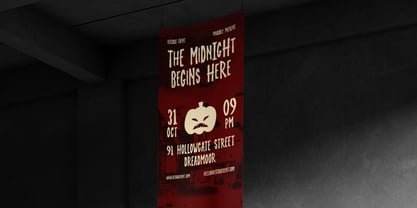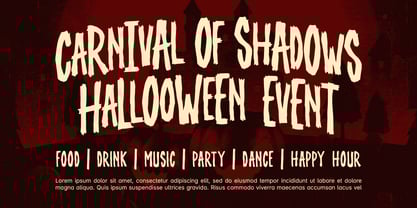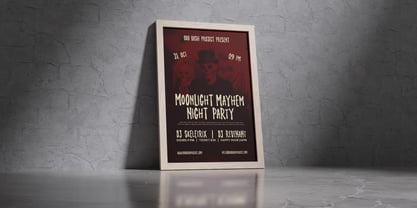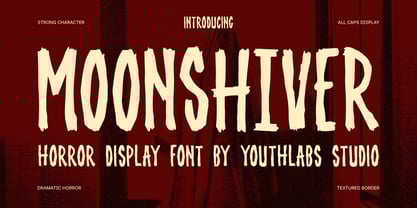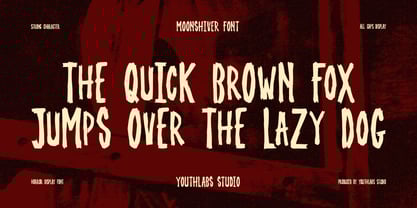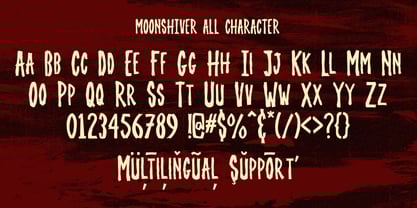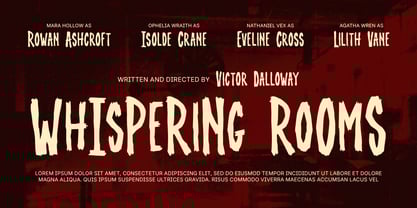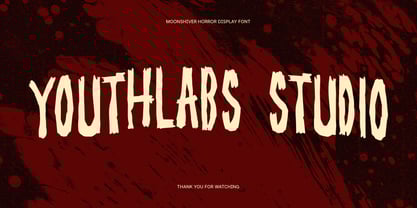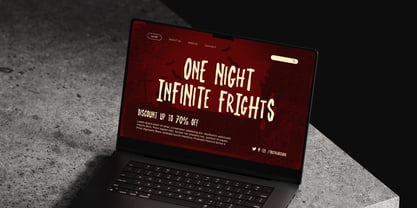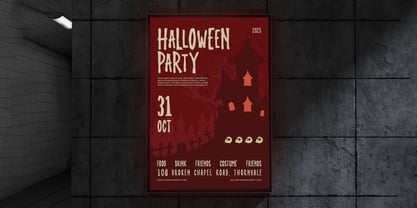
Moonshiver
by Youthlabs
The Moonshiver Font Family was designed by Fathi Al Ghazi and published by Youthlabs. Moonshiver contains 1 styles. More about this family
Moonshiver is a dramatic horror display font that sends chills down your spine. Designed with jagged, hand-drawn strokes and a distressed edge, it perfectly captures the eerie tension of midnight terror. Its all-caps form and strong character make every word scream with suspense. Whether you’re crafting horror movie posters, Halloween party invitations, spooky book covers, or eerie branding, Moonshiver adds an unforgettable haunted charm to your design. Let your typography whisper fear and mystery in every letter.
Designers: Fathi Al Ghazi
Foundry: Youthlabs